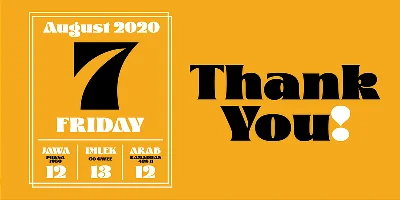
Glodok Font
Glodok Font is ideal for Asian marketplace branding, multicultural business districts, international trade center signage, cultural diversity campaigns, urban commercial areas, heritage district displays, bustling market environments, cosmopolitan restaurant identity, cultural exchange programs, international festival materials, diverse community centers, and vibrant commercial hub communications. This dynamic typeface brings authentic marketplace energy to projects requiring multicultural appeal and commercial vibrancy.
What makes Glodok Font so exciting is its exceptional ability to capture the vibrant energy and multicultural richness of bustling urban marketplaces through boldly crafted letterforms that embody the dynamic spirit of international commerce. The font features robustly designed characters with commercial strength and cultural versatility that mirror the diverse energy and entrepreneurial spirit of thriving market districts. Its energetic character conveys prosperity and cultural exchange while maintaining excellent readability in busy commercial environments, making it perfect for businesses seeking to communicate multicultural values, commercial success, and the vibrant energy of diverse marketplace communities with authentic urban appeal.
The Glodok Font family includes multiple commercial weights and marketplace variations that showcase its multicultural character while providing comprehensive design flexibility for various international business applications. Each variant maintains the original's dynamic marketplace energy while offering extensive options for creating vibrant typographic compositions that celebrate cultural diversity and commercial prosperity.
Whether you're developing multicultural business identities, creating international marketplace materials, or designing diverse community communications, Glodok Font offers the perfect combination of cultural authenticity and commercial functionality. This exceptional typeface brings genuine marketplace vitality to design projects, making it an indispensable choice for designers seeking typography that effectively communicates cultural diversity, commercial energy, and the thriving spirit of international marketplace communities with authentic multicultural vibrancy.